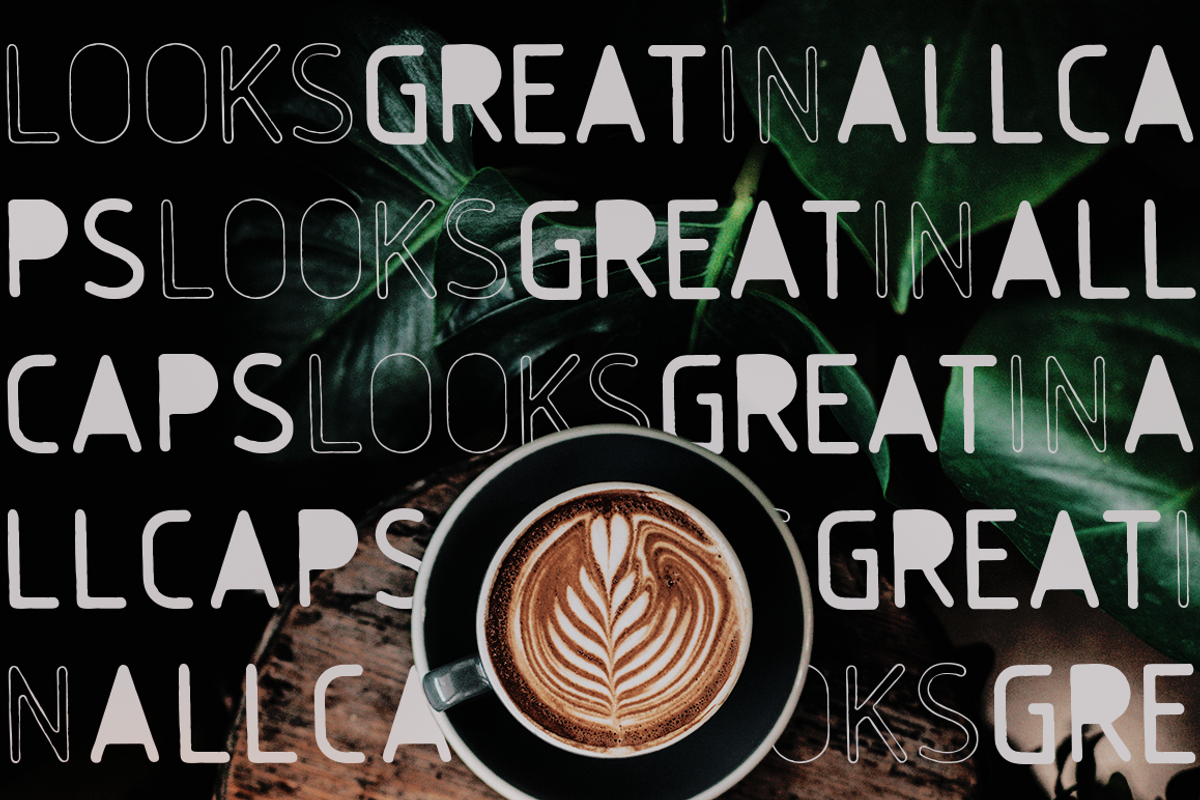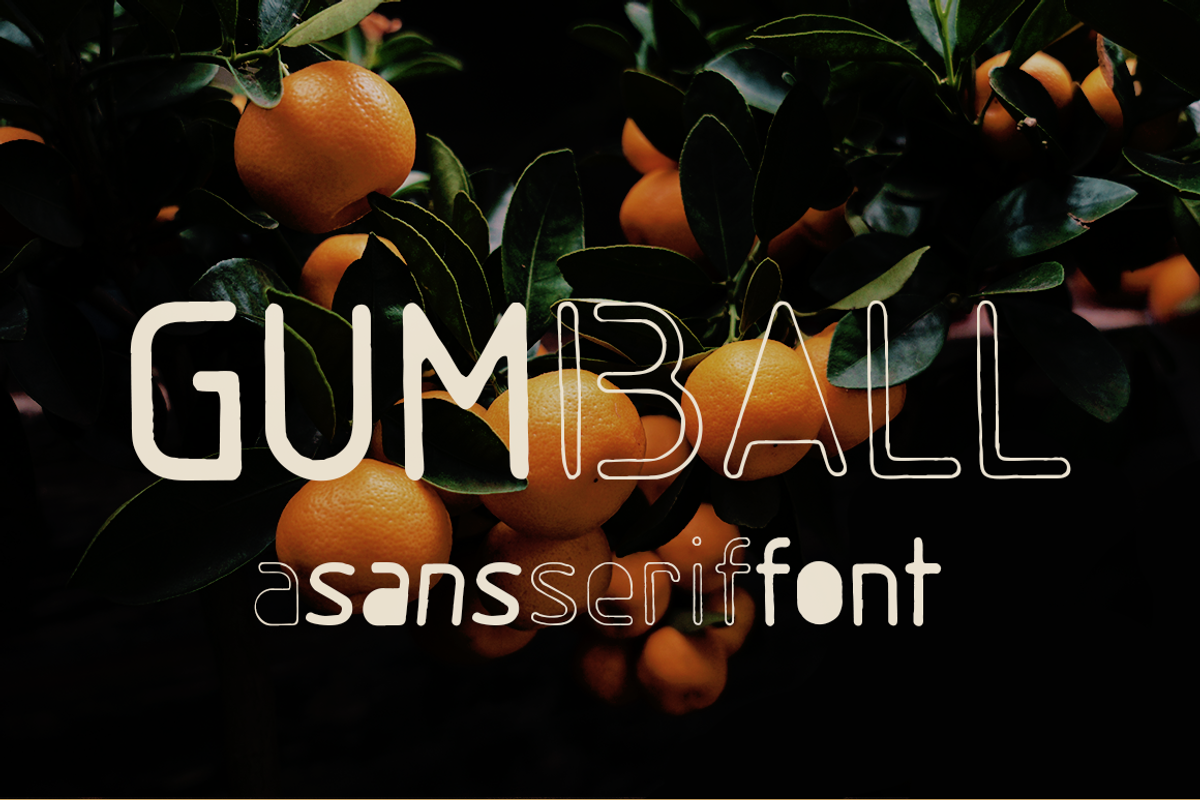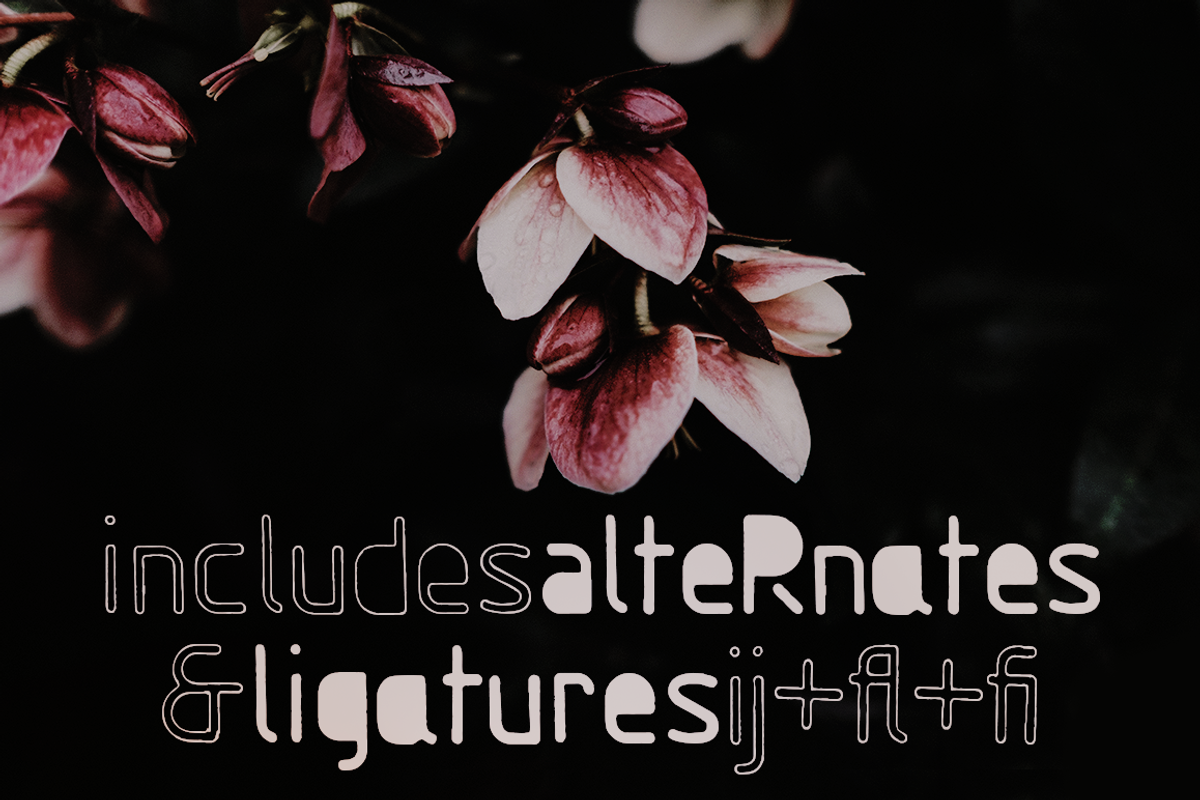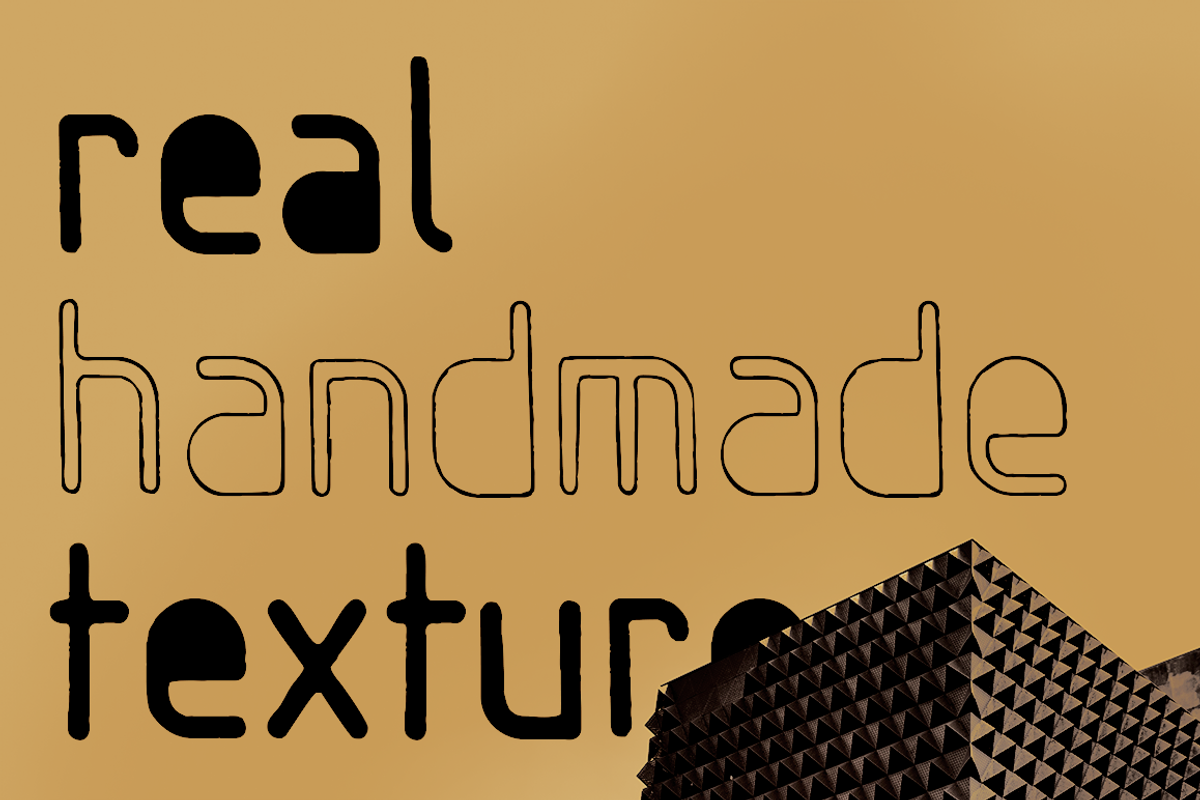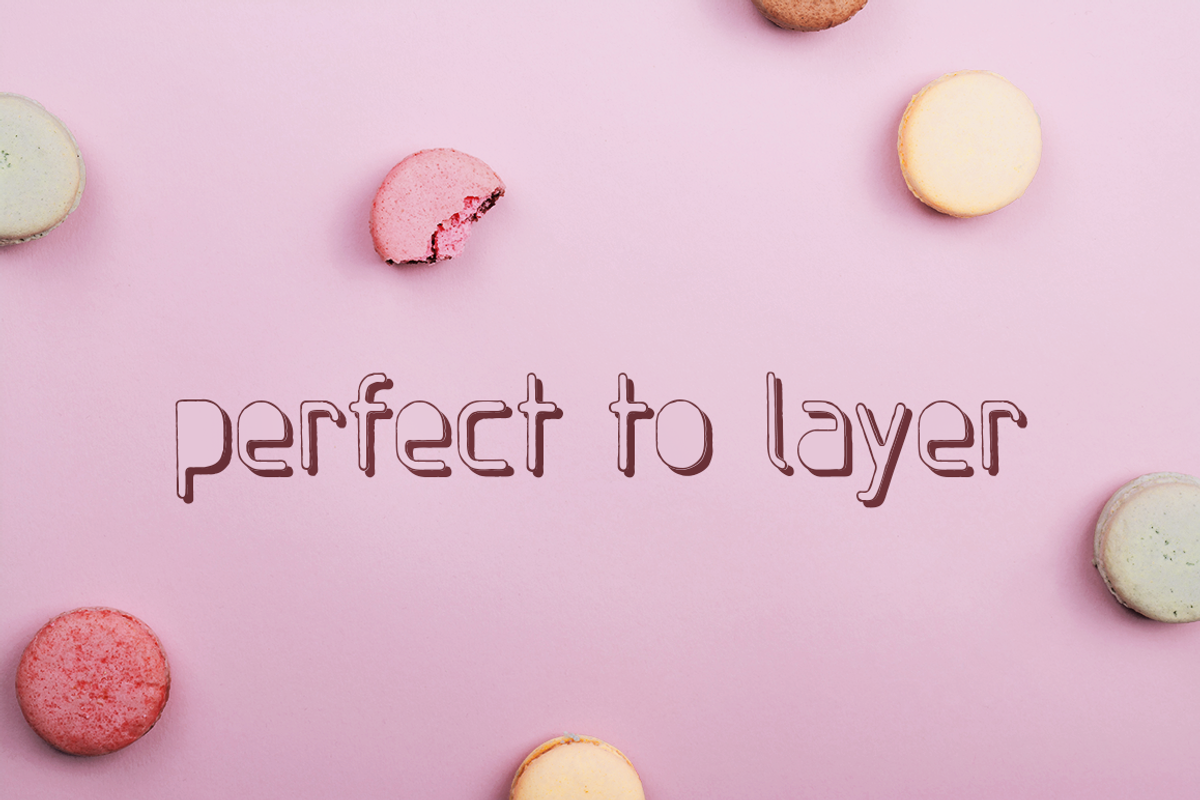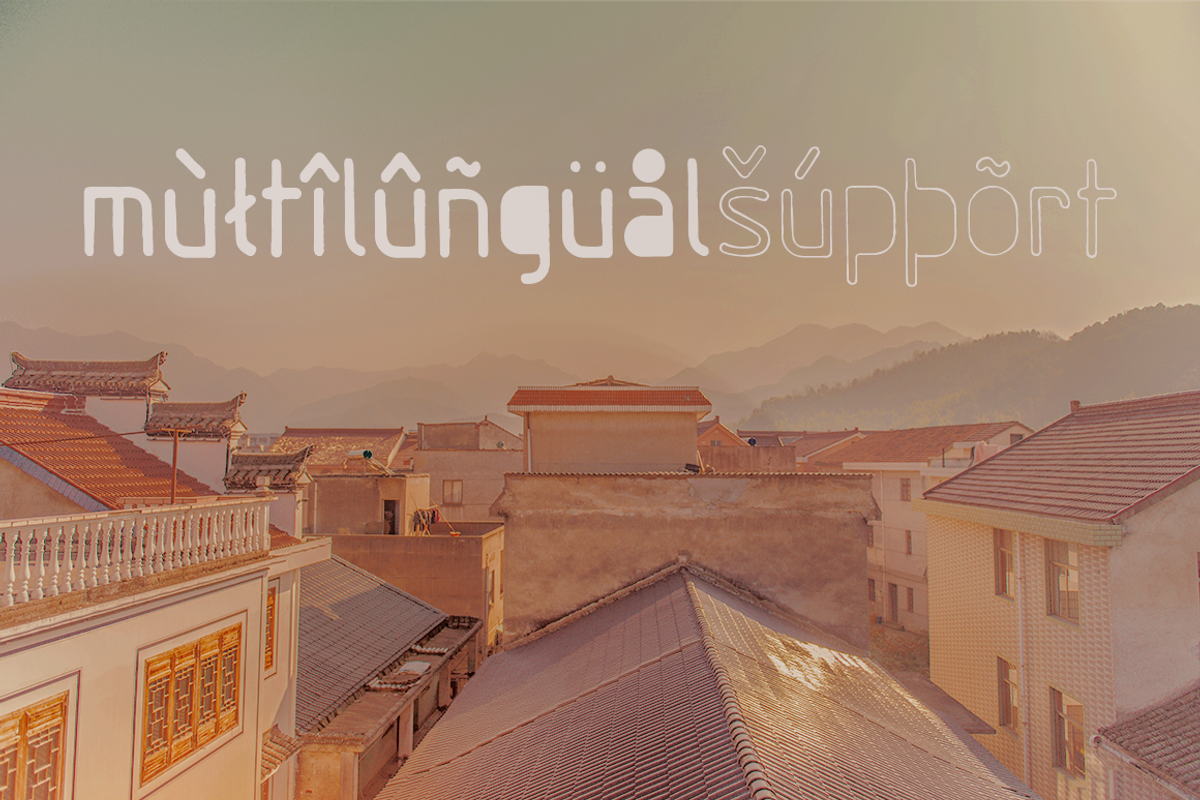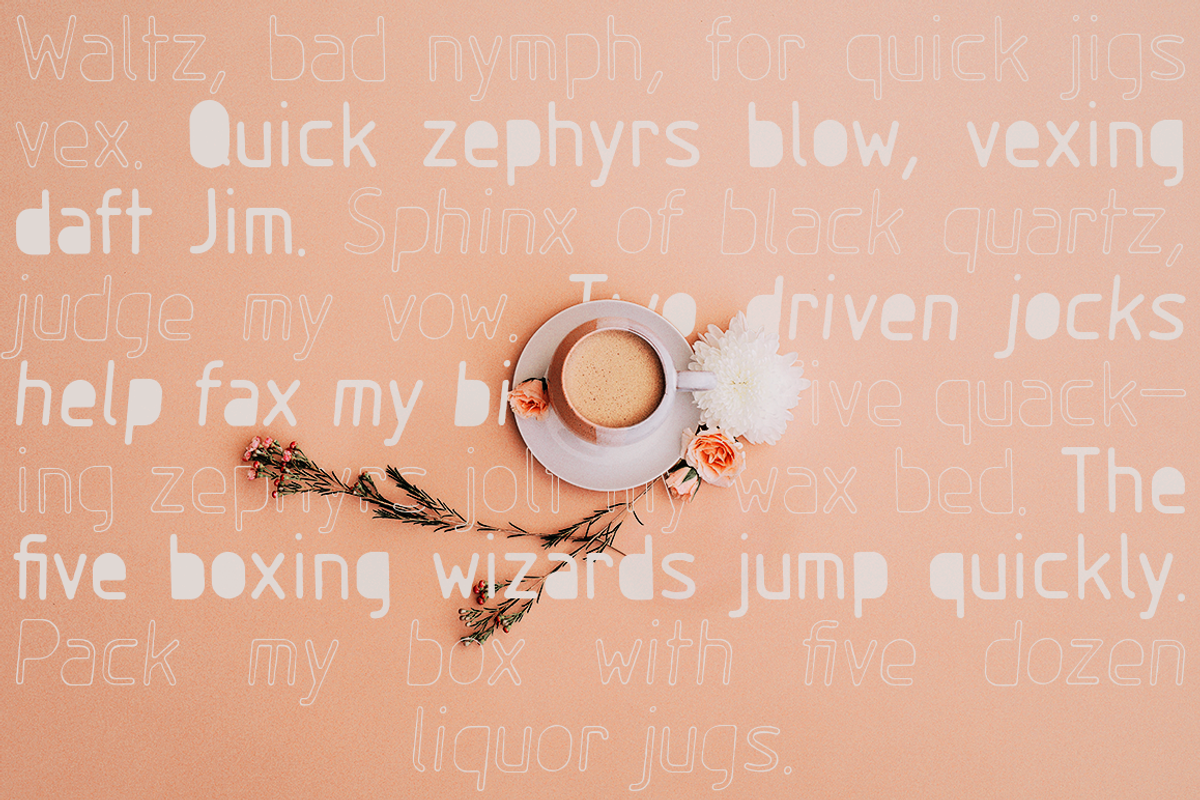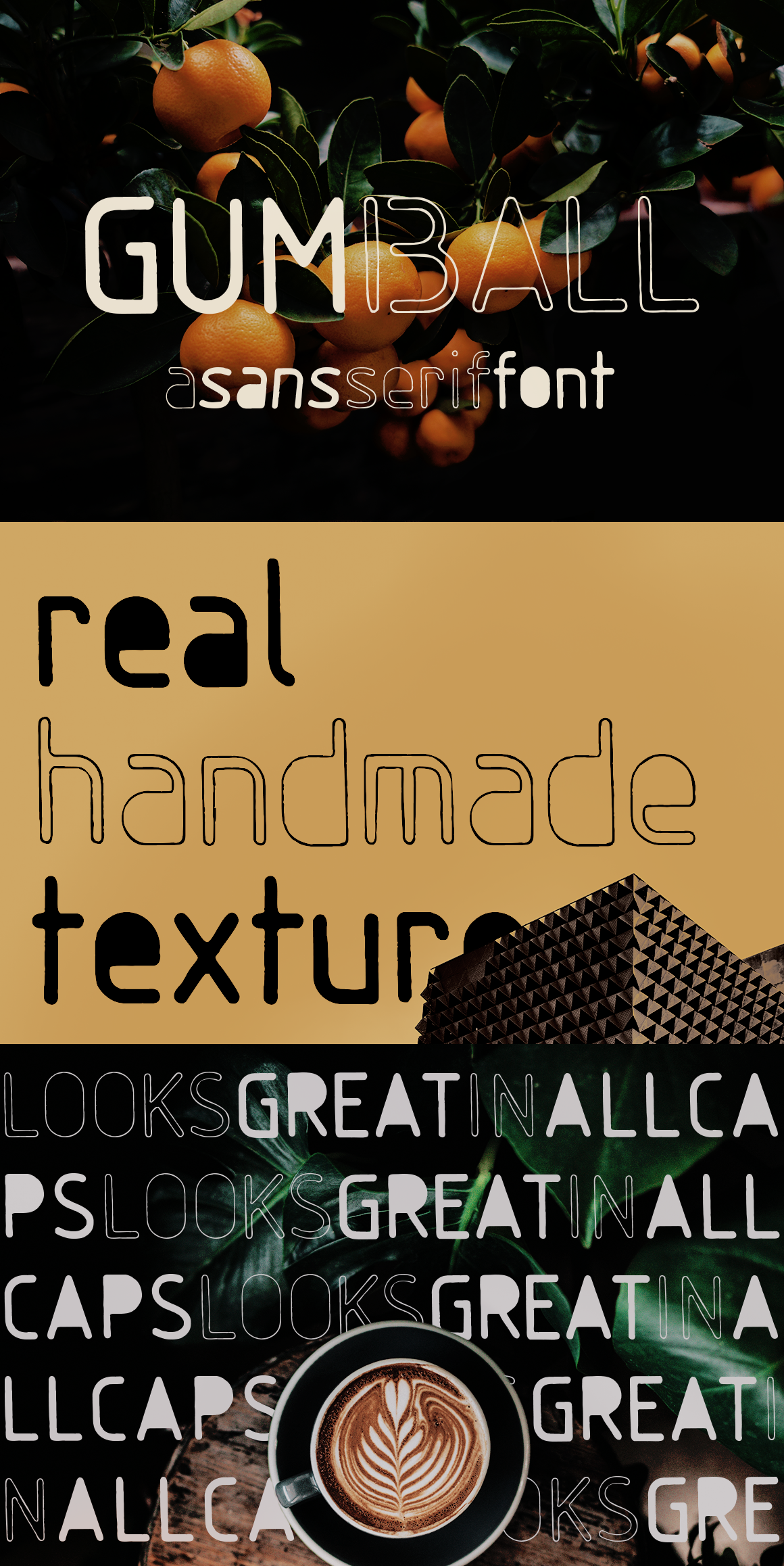
Gumball sans serif font
Gumball is a hand drawn font using a letter ruler. It is a versatile sans serif font, perfect to make a statement in posters, titles, branding and packaging. Its real handmade texture and look also make it great for scrapbooking, postcards, notes and quotes and social media posts.
This font and texture set includes the Gumball font family with four fonts:
- Gumball
- Gumball Italic
- Gumball Blackout
- Gumball Blackout Italic